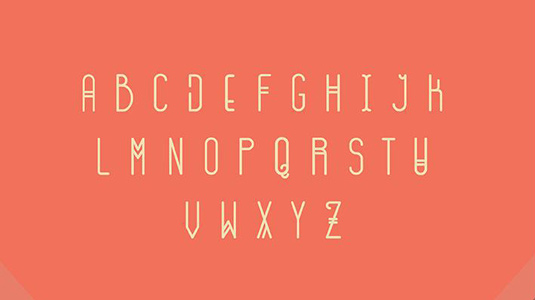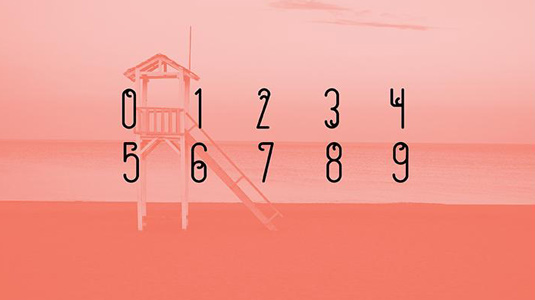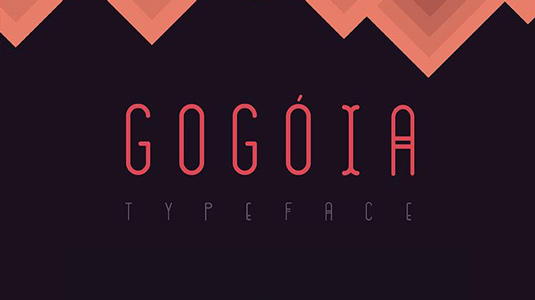
Font of the day: Gogóia
Every day we showcase the best fonts on the web. Today it's Gogóia by Alan de Sousa, which is free to download in exchange for a share.
Gogóia by Alan de Sousa
Today's font of choice Gogóia was created by Brazilian designer Alan de Sousa. "Gogóia is a yummy, juicy font, inspired by Brazilian tropicalism," he comments. "This font is available for free under creative commons license, and you can use it for both personal and commercial projects."